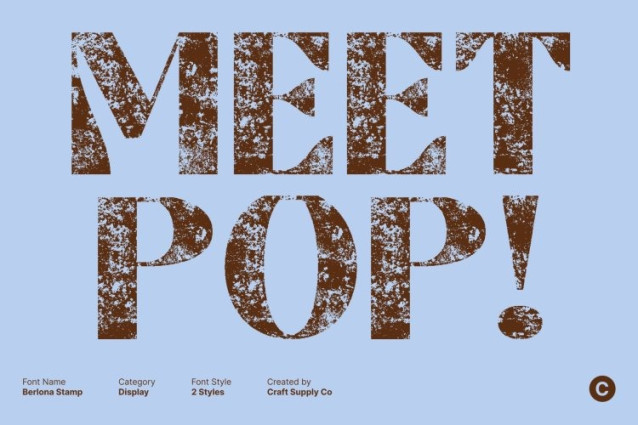
Berlona Stamp Font
Berlona Stamp Font This is a modern display sans serif built to command attention in every visual space. Its bold, confident letterforms feature clean geometry and striking proportions, making it an ideal choice for designers who need a font that instantly communicates strength and clarity.
Stamp Texture for Bold Artistic Character
What sets this font apart is its authentic stamp texture, adding depth, grit, and expressive personality to the clean sans serif structure. This handcrafted texture introduces a raw, tactile feel that enhances the font’s visual energy, making it perfect for designs that aim to feel bold, artistic, and full of character.
Perfect for Branding, Headlines, and Poster Art
This font excels in high-impact visual settings. Whether used for branding, large headlines, poster design, merchandise, or promotional materials, this font ensures your message stands out with authority. Its strong construction and textured finish create a powerful visual rhythm that enhances both digital and print compositions.
A Versatile Choice for Modern Creative Projects
Designed for creators seeking a balance between modern structure and expressive texture, this font offers flexibility across a wide range of design themes. From contemporary branding to vintage-inspired posters, it adapts while maintaining its bold personality.